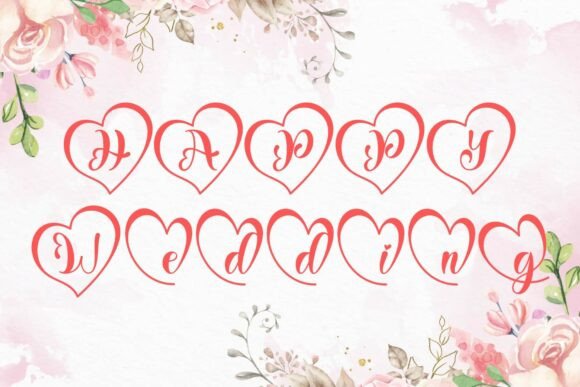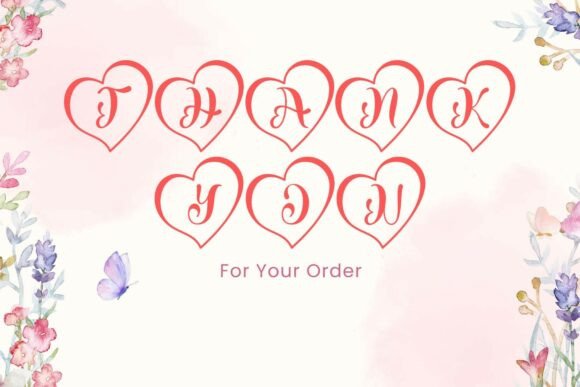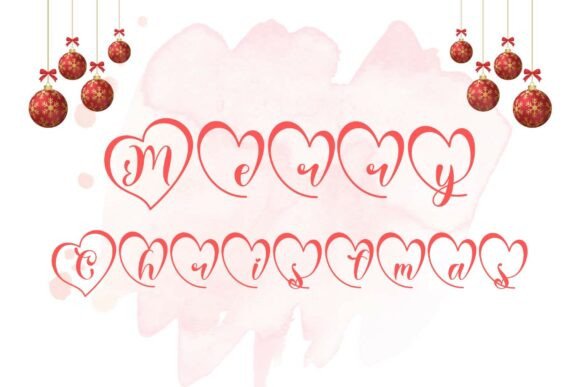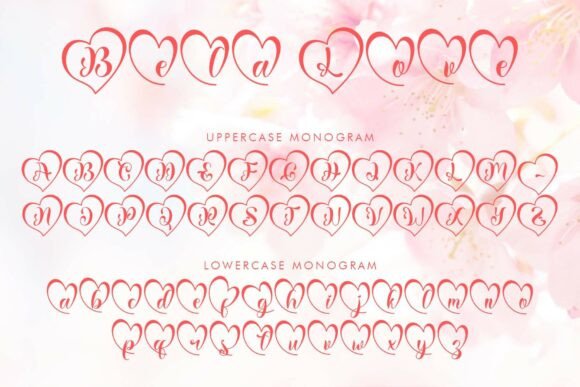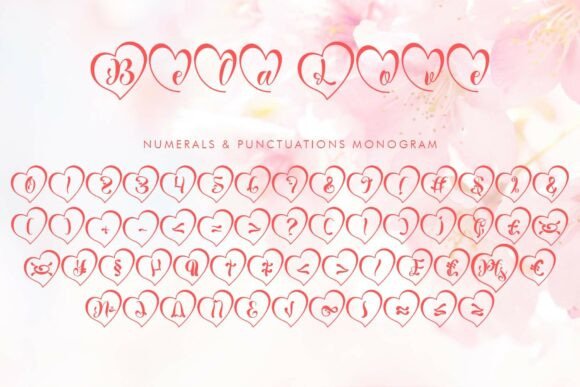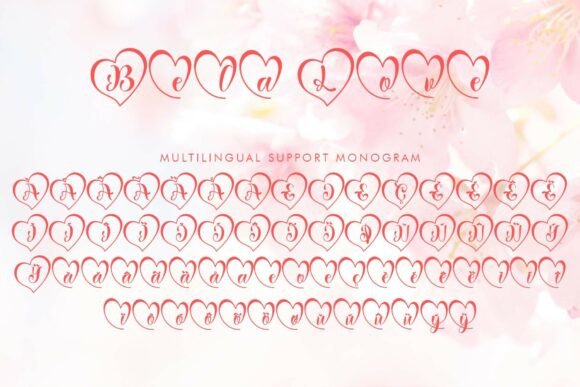
Blossoming Love with Typography
Have you ever stumbled upon a font that makes you feel all the feels? Perhaps it’s the perfect combination of whimsy and elegance that speaks to your creative soul. For me, that font is Bela Love, a delightful monogram font that embodies the essence of love and affection.
Bela Love Font is more than just a pretty face; it’s a versatile tool designed to help designers craft unique and personalized messages for special occasions. Whether you’re creating Christmas greetings, wedding invitations, or Valentine’s Day cards, this font is the perfect companion to express your heartfelt sentiments.
As a designer, you know how valuable it is to have the right tools at your disposal. Bela Love Font is a valuable addition to any design arsenal, offering uppercase and lowercase letters, numerals, punctuation, and multilingual support to help you convey your message in style.
Bela Love Font Key Features
- Font Style: Script, Calligraphy
- Unique Characteristic: Elegant, cursive style with intricate details and flourishes
- Language Support: Multilingual
- Supports a wide range of languages, including Latin, Cyrillic, and Greek alphabets
Bela Love Font Review
I recently had the chance to work with the Bela Love font, and I must say it’s a unique and lovely addition to any design project. ✨ One of the things that stood out to me was the elegant and feminine touch it brings to text. The curves and lines are so well-designed that it’s perfect for wedding invitations, birthday cards, or any other project that requires a touch of romance.
Here are some of the things that work well with Bela Love:
- ✨ Elegant and feminine design
- ✨ Perfect for wedding invitations, birthday cards, and other romantic projects
- ✨ Highly customizable, with many options for color and style
- ✨ Great for creating a vintage or antique feel
- ⚠️ Not ideal for projects that require a bold or edgy feel
- ⚠️ May not be suitable for projects with a lot of complex typography
- ⚠️ Can be a bit difficult to read in smaller font sizes
Overall, I think the Bela Love font is a great choice for designers who are looking for a unique and elegant font to add to their project. While it may have some limitations, it’s definitely worth considering for the right project.
For optimal results, pair the Bela Love Font with a bold or cursive font for contrast. Use it for wedding invitations, greeting cards, or any romantic-themed design. You can also use it for quotes, titles, or headings to add a touch of elegance.
Alternatives to Bela Love Font for Designers
The Great Vibes Font is a beautiful, elegant script font perfect for creating a romantic atmosphere. It’s ideal for wedding invitations, love letters, or any other design that requires a touch of sophistication and romance. In comparison to Bela Love Font, Great Vibes Font is more delicate and refined, making it suitable for designs that require a more subtle approach.
The Carolyna Pro Font is a modern script font that exudes elegance and sophistication. It’s perfect for designs that require a touch of luxury and glamour. Compared to Bela Love Font, Carolyna Pro Font is more contemporary and versatile, making it suitable for a wide range of designs, from fashion to luxury branding.
The Alex Brush Font is a beautiful, handwritten script font that’s perfect for creating a personal and intimate atmosphere. It’s ideal for designs that require a touch of warmth and personality, such as greeting cards, invitations, or social media graphics. In comparison to Bela Love Font, Alex Brush Font is more casual and relaxed, making it suitable for designs that require a more laid-back approach.
The Lobster Font is a fun and playful script font that’s perfect for creating a lighthearted and carefree atmosphere. It’s ideal for designs that require a touch of whimsy and humor, such as social media graphics, advertising, or entertainment branding. Compared to Bela Love Font, Lobster Font is more casual and playful, making it suitable for designs that require a more youthful and energetic approach.